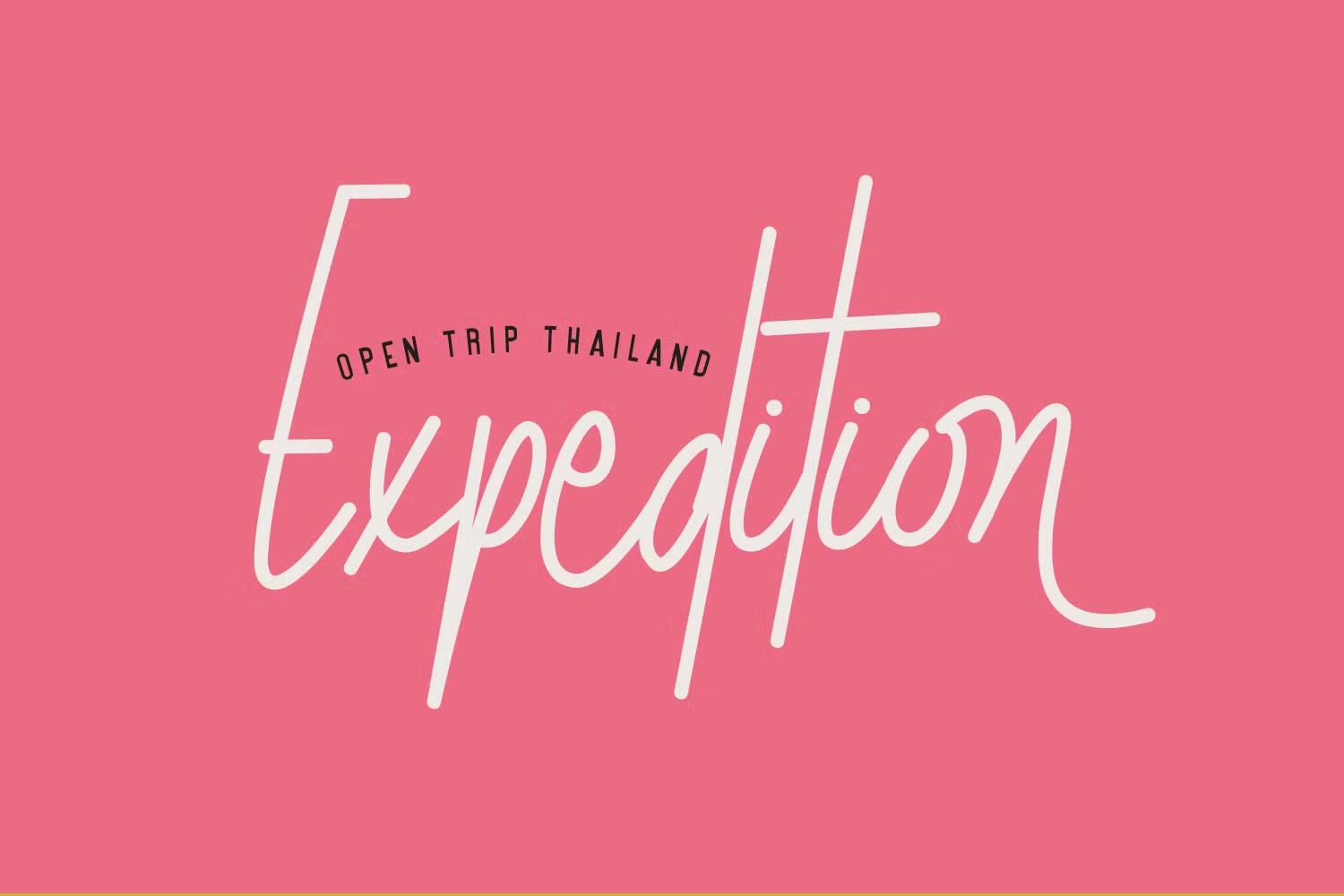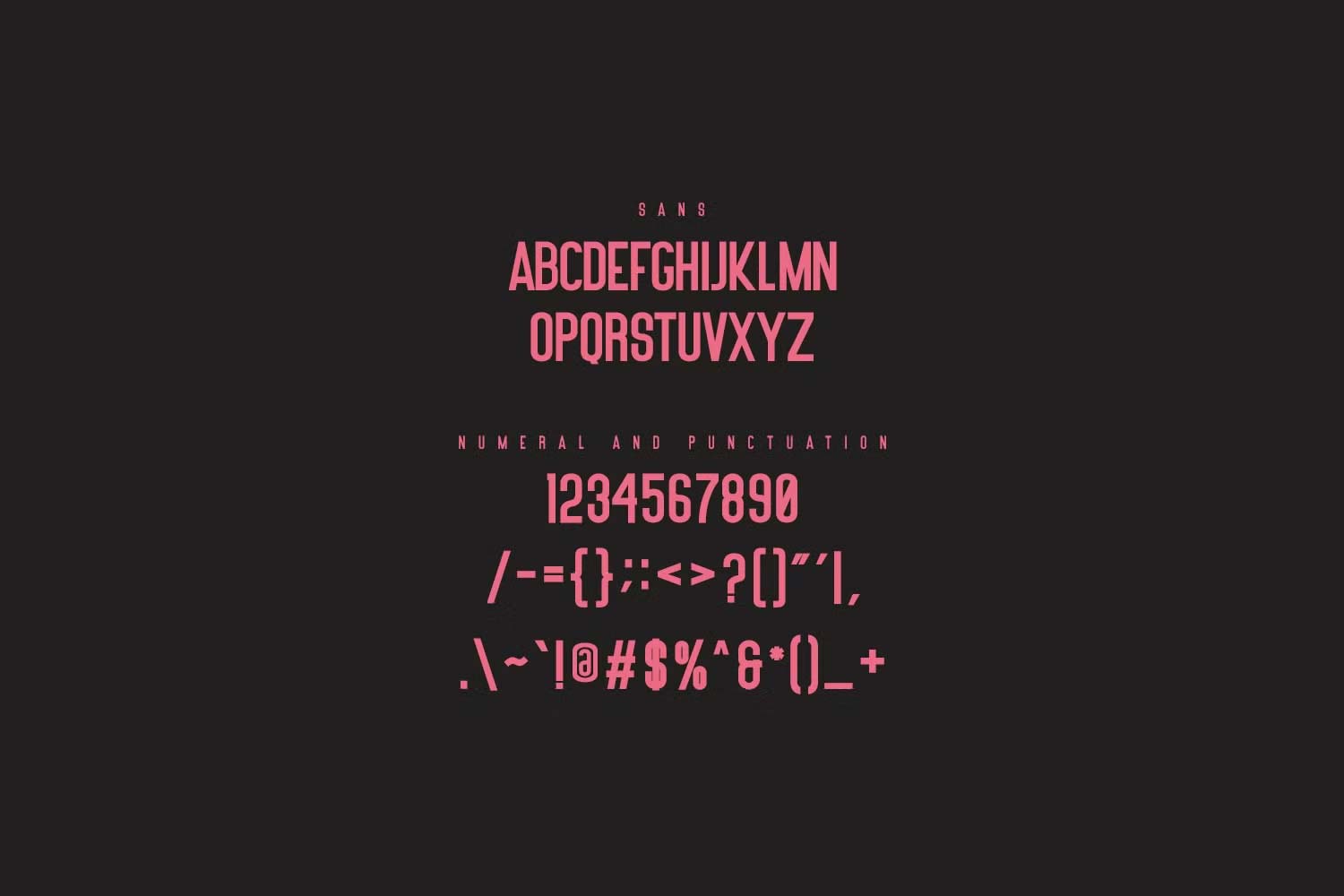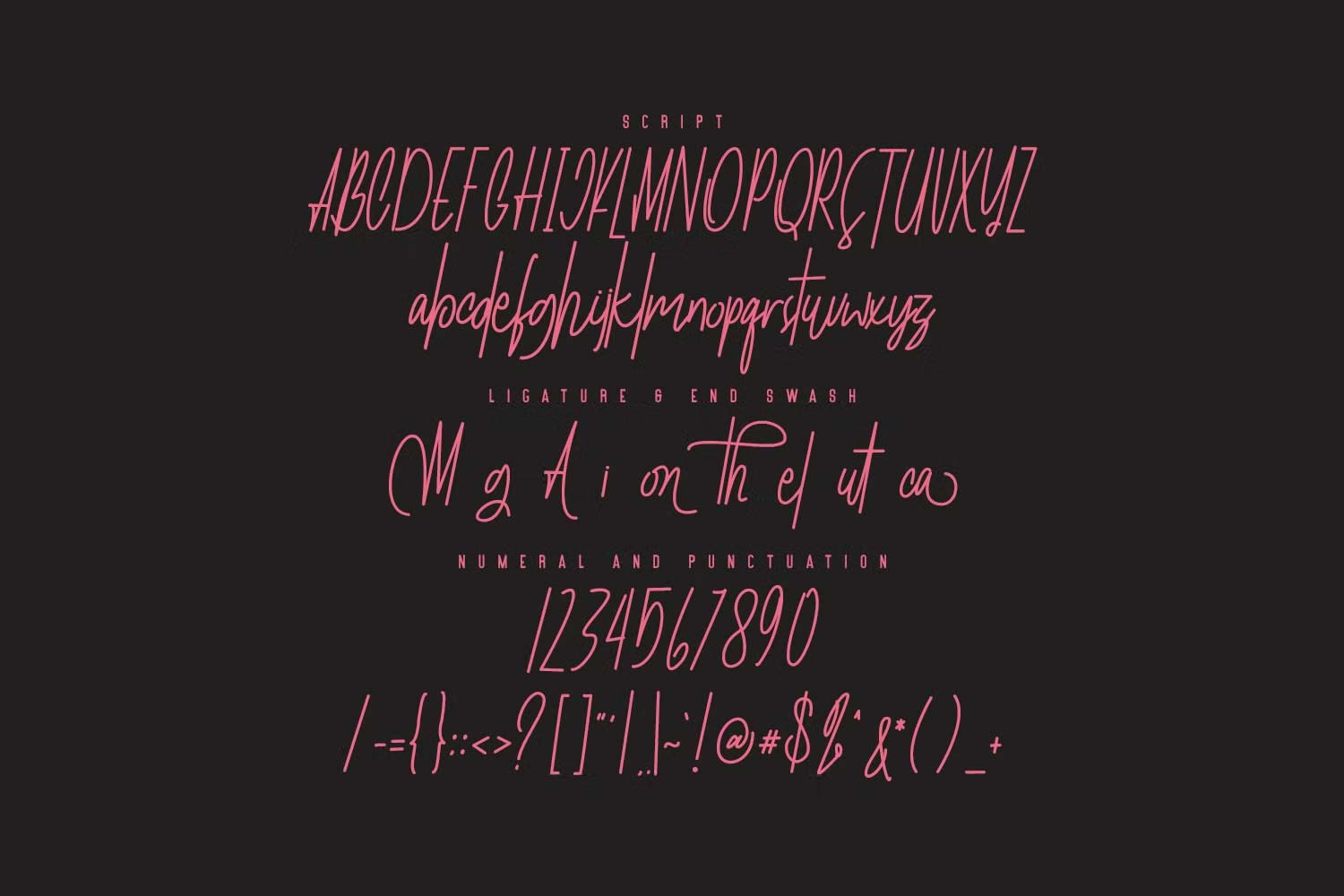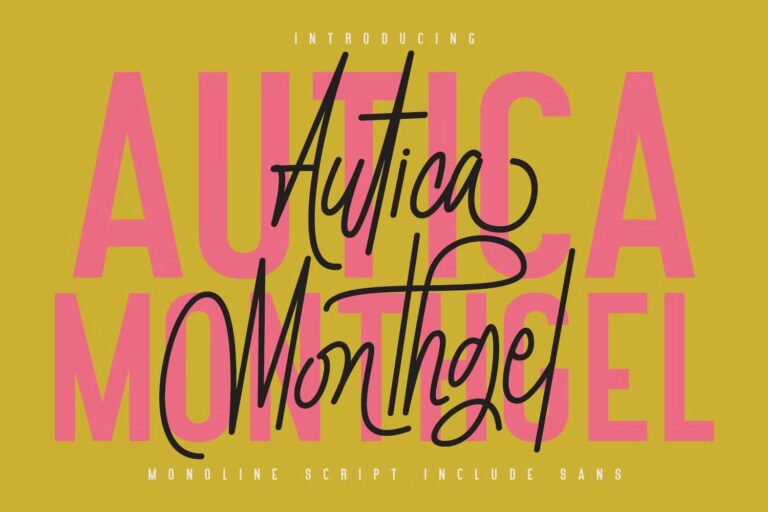
Give your designs an authentic brush handcrafted feel. “Autica Monthgel Monoline Script Sans Font Duo” is perfectly suited to signature, stationery, logo, typography quotes, website header, branding and more.
Autica Monthgel Monoline Script Sans Font Preview